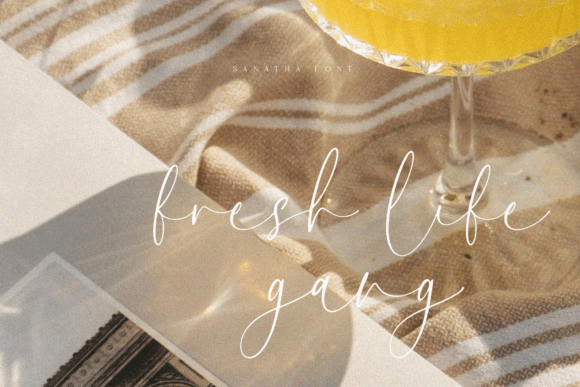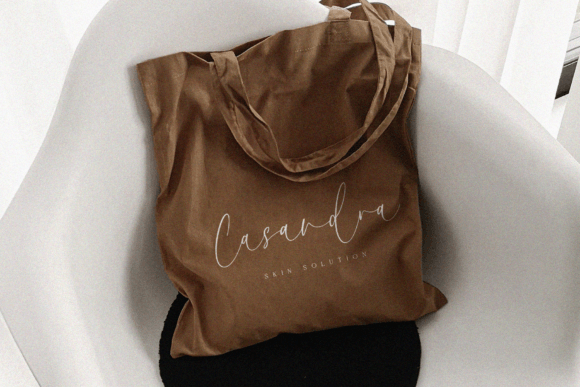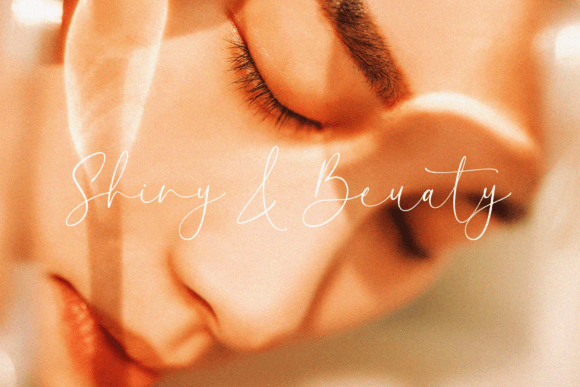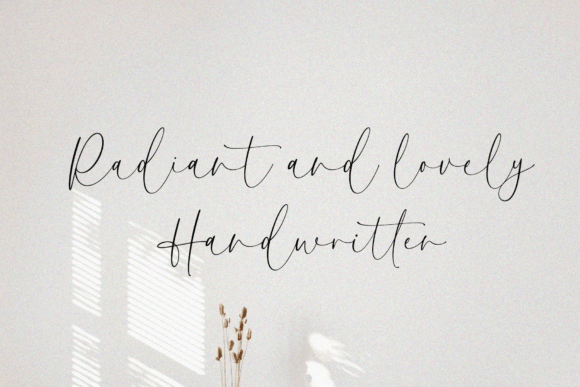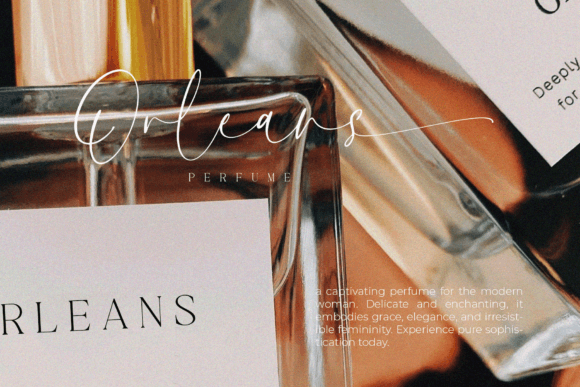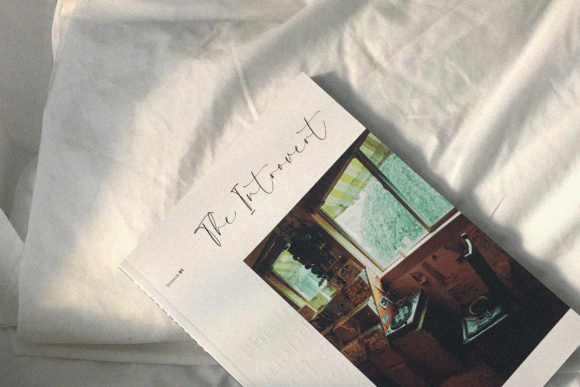
Introduction to Sanatha Font
Sanatha is a stylish calligraphy font with natural handwritten that perfect for any kind of design project like wedding invitation, branding, poster and others.
This font come with lovely swashes and ton of ligature which make this font stylish and elegant .